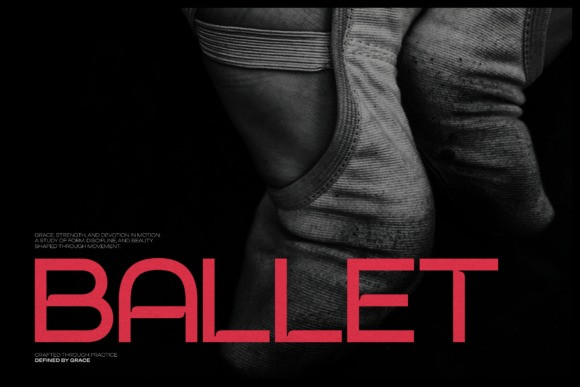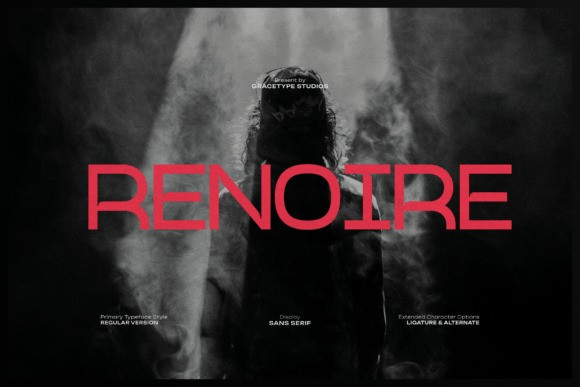
Renoire Font
Renoire Font is a bold, geometric, and uncompromisingly modern sans-serif typeface, built for maximum impact and striking visual clarity.
This powerful Renoire font features a clean, high-contrast structure defined by strong, purposeful lines and a contemporary aesthetic that rejects unnecessary ornamentation. The all-caps design ensures every word is delivered with confidence and authority, making it a standout for titles and headlines. This Renoire typeface is enhanced with extended character options, including versatile ligatures and alternates, allowing for subtle yet sophisticated typographic customization.
It is the premier choice for sleek corporate branding, high-tech product design, fashion editorials, and any project that requires a powerful, minimalist, and functionally versatile sans-serif. The bold and clean lines of the Renoire font family guarantee a commanding presence in any design medium.